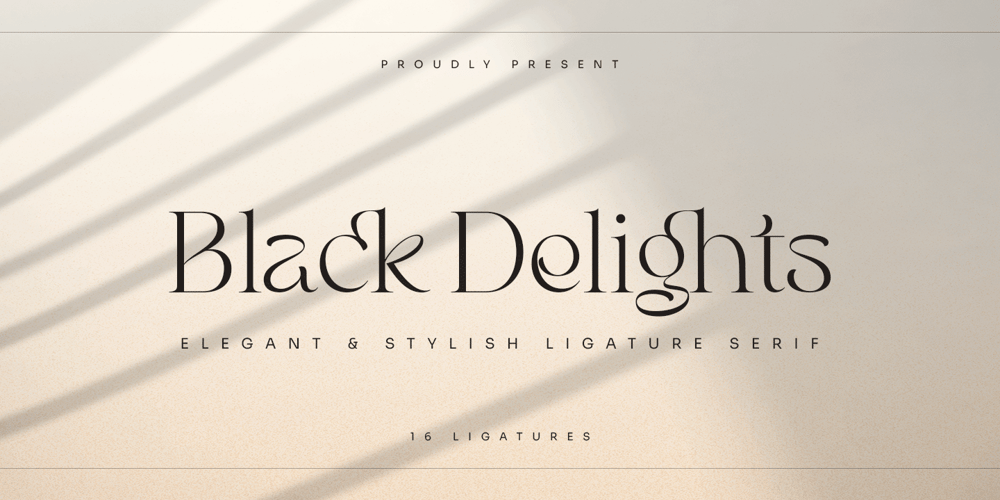
Black Delights Font Family was designed by Abdul Malik Wisnu, Rivo Adriansyah and published by Mokatype Studio. Black Delights contains 1 styles and family package options. Hello Introducing, Black Delights – Elegant Ligatures Connected Serif is an elegant and unique font that uses ligatures to smoothly link letters. Perfect for adding a unique twist to word-mark logosBlack Delights has 16 ligatures as well making it super fantastic.Ligature can be turned off if required standard writing needs.